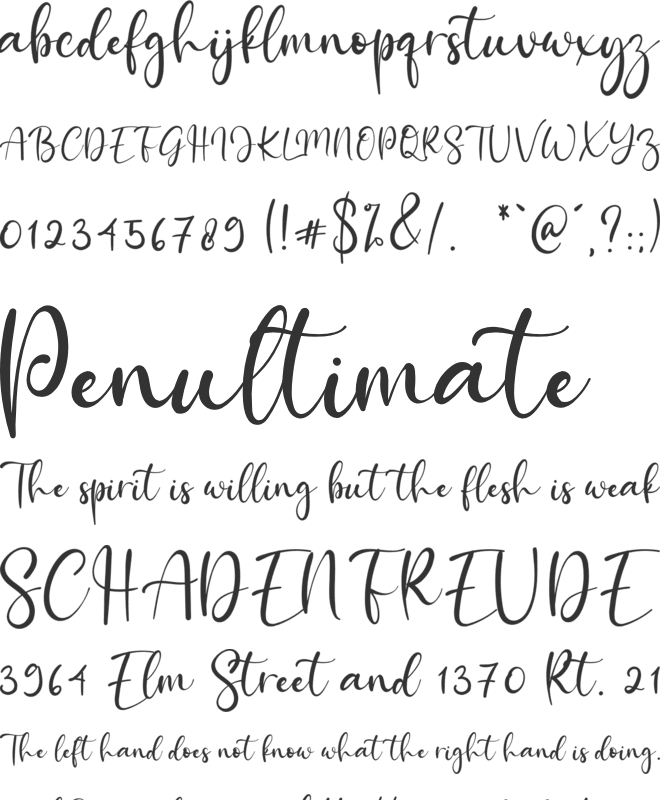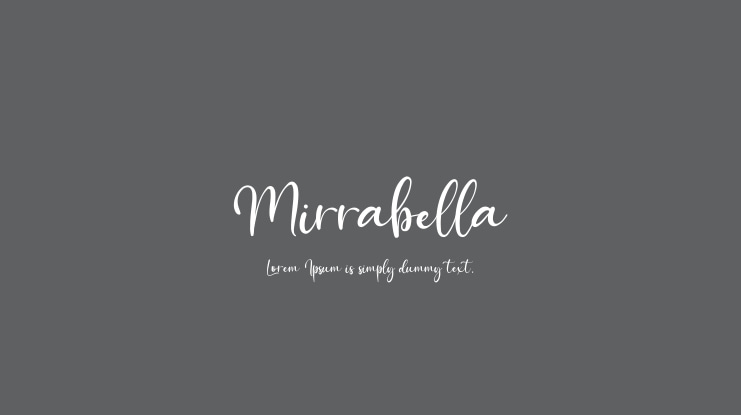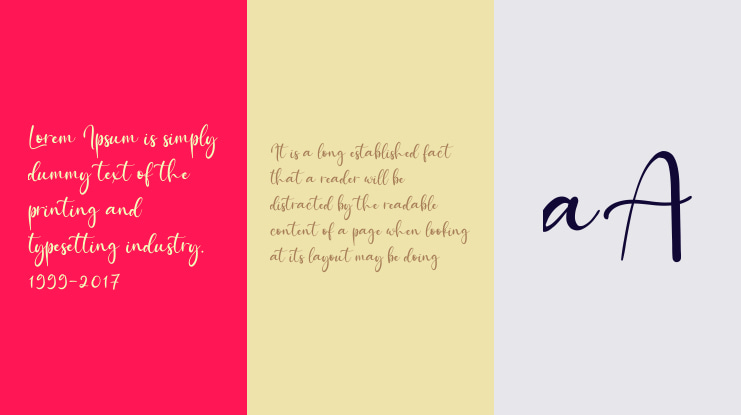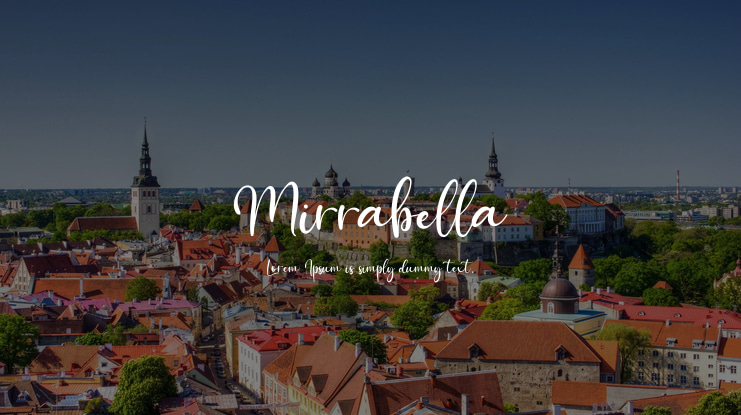
Mirrabella Font Family
Mirrabella Script Font. A collection of letters and numbers suitable your projects also great for Logotype, Branding Design, Logo Design, Digital Lettering Arts, T-Shirt/Apparel, Poster, Magazine, Signs, Advertising Design, and any design needs.